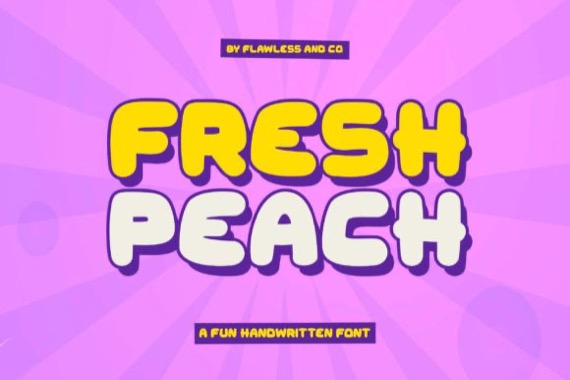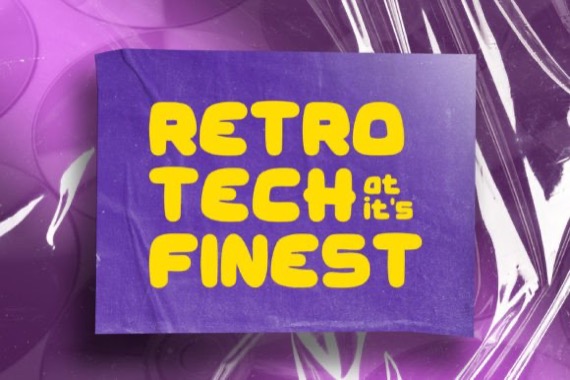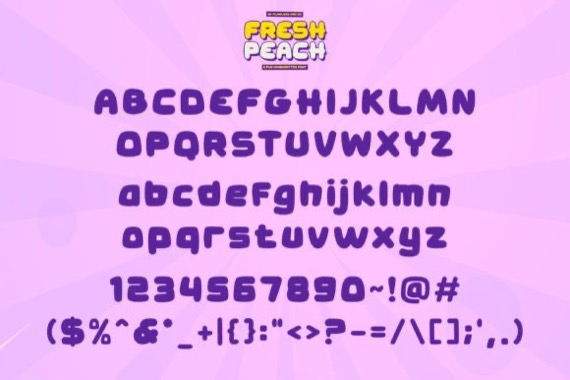
Introducing “Fresh Peach Font from Flawless And Co” – a fun and bold display font that brings a burst of energy and playfulness to your designs. With its vibrant and lively letterforms, Fresh Peach adds a delightful touch of creativity and excitement. It showcases a unique blend of fun and boldness, making it perfect for projects that require a standout typographic element.
Fresh Peach Display Script Font